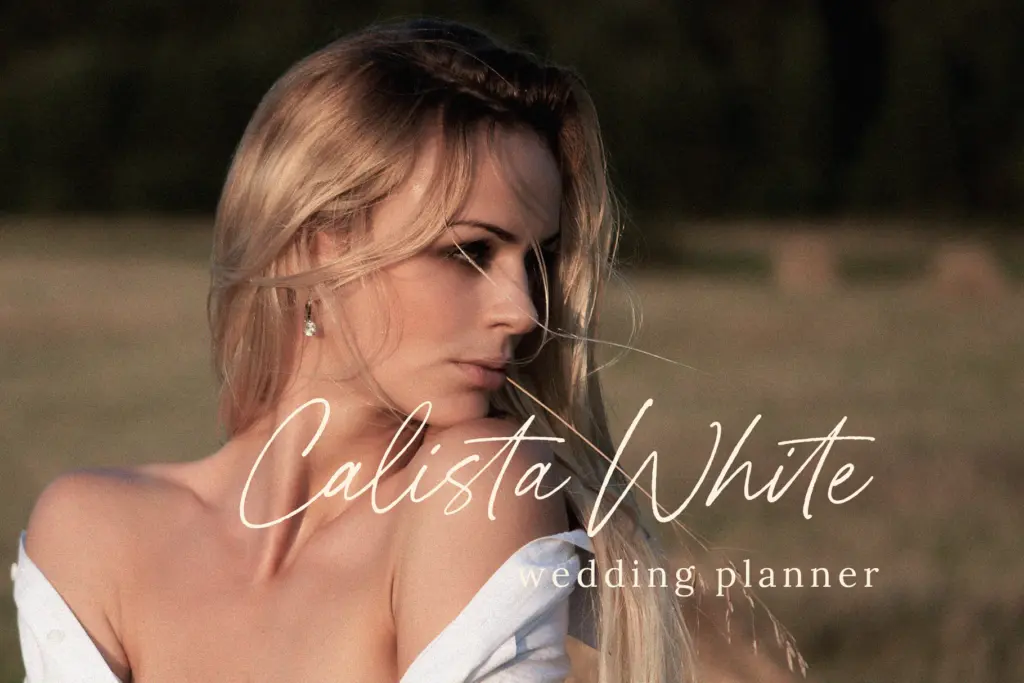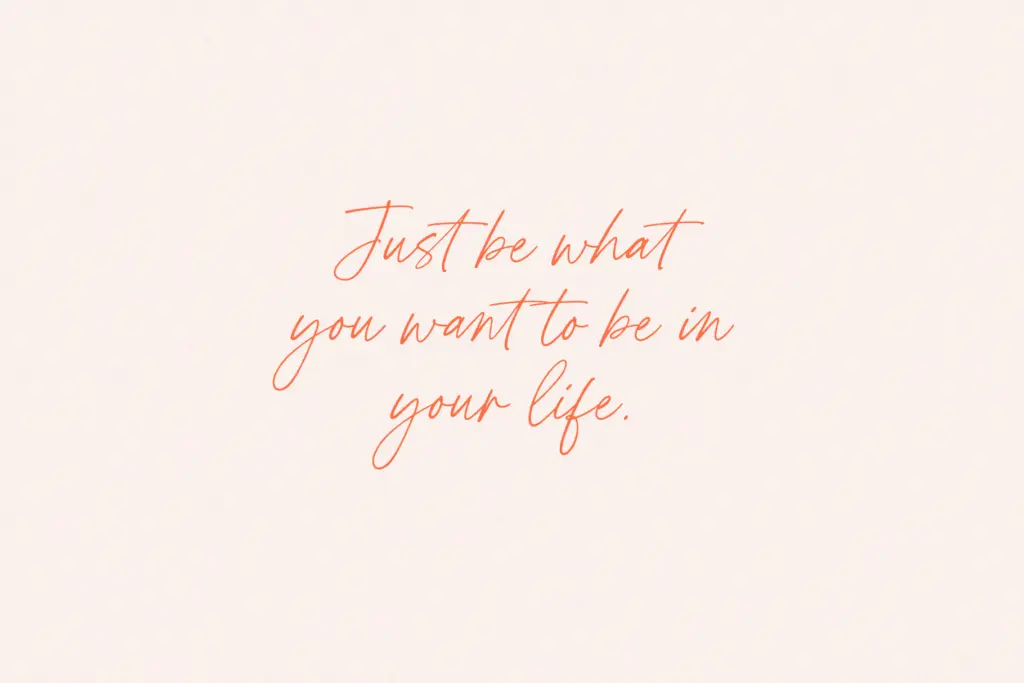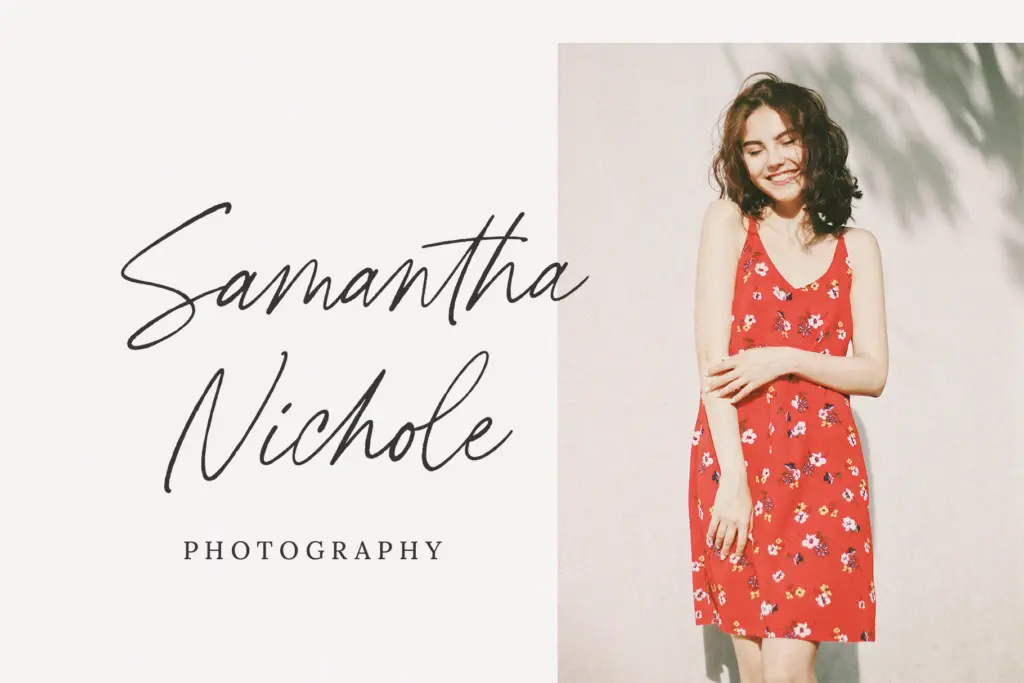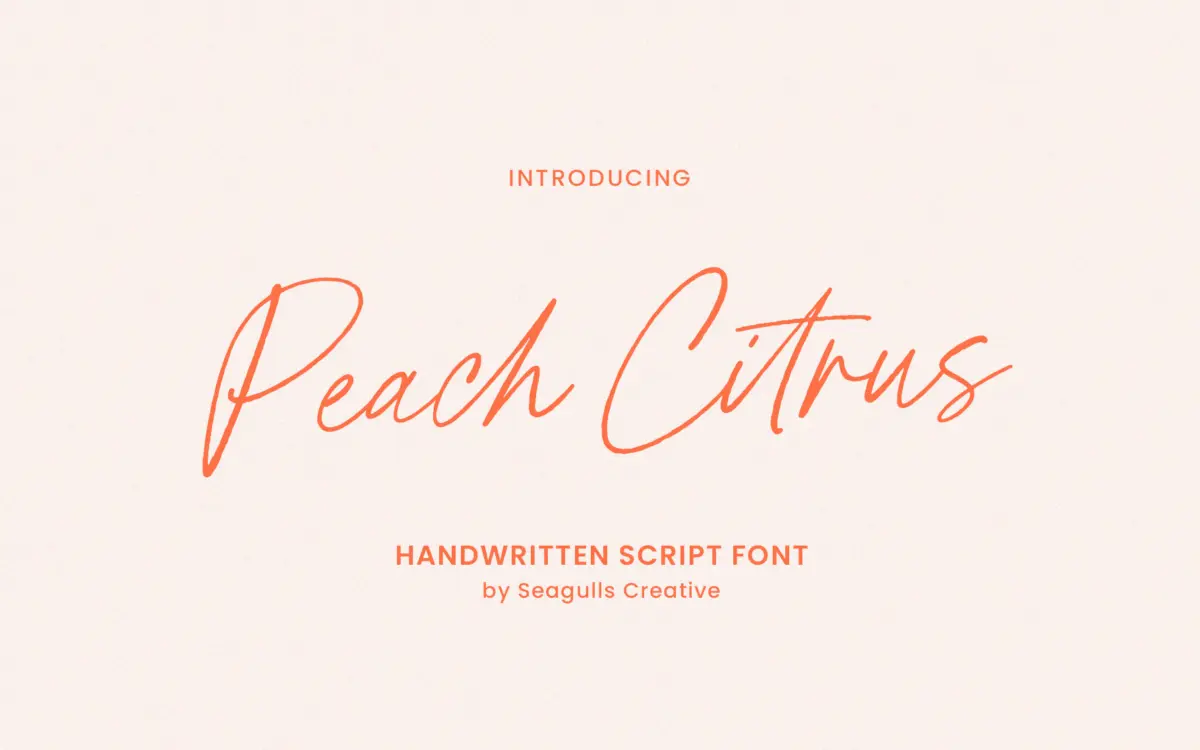
Peach Citrus sits in the well-populated field of casual, marker-style scripts: a single-weight handwritten face that leans toward a relaxed, unforced pace rather than a formal calligraphic one. The strokes have a modest amount of contrast, thick enough at the downstrokes to give the letters some body, but never so heavy that it reads as brush lettering. Baselines drift slightly rather than sitting rigid, which is the point of this genre — it’s meant to look like it was written in one take, not built letter by letter in a type editor.
Where it distinguishes itself from the crowd of similar releases is in the restraint of its joins. Some connections between letters are true ligated strokes, others are simply close-set forms that trick the eye into reading as continuous. This keeps the overall texture even rather than lumpy, which is a common failure point in handwritten scripts where certain letter pairs suddenly swell or thin unpredictably. It won’t win points for originality — this is a familiar register — but the drawing is consistent, and consistency is what most buyers actually need from a script.
The set covers uppercase and lowercase, numerals, punctuation, and a run of swash alternates for capitals that want a bit more flourish at the start or end of a word. Ligatures handle some of the more awkward letter combinations that plague scripts — double letters, certain ascender-descender collisions — and the swash caps give you an option for a title-case first letter without switching to a display alternate. There’s stated multilingual support, useful if your work needs accented characters, though the brief doesn’t specify which languages beyond that.
None of this is groundbreaking for the category — swashes and ligatures are close to standard-issue in a script font at this level — but they’re present and functional, and that’s what matters when you’re setting a word and need the kerning to hold up without manual nudging every pair.
This is a font built for short bursts of text, not paragraphs: a wedding invitation’s leading line, a logotype, a label on packaging, a caption on a social graphic. At small sizes the joins can get muddy, particularly on screens with lower resolution, so anyone using it for print labels or social posts should test at the actual output size before committing — scripts like this tend to look better in a mockup at 200pt than they do shrunk onto a jar label.
It pairs naturally with a plain sans or serif for supporting text, since the script itself is doing all the personality work and doesn’t need competition. For branding work, it suits food, beverage, and lifestyle projects looking for warmth without going fully rustic or vintage — it reads more contemporary casual than heritage. If your project needs formality or gravitas, look elsewhere; Peach Citrus is built for approachable, not solemn.
- Ligatures and near-joins keep the letter spacing even rather than lumpy
- Swash capitals give a flourish option without switching fonts
- Multilingual support extends its use beyond basic English text
- Joins can blur at small sizes, so testing at actual output size is essential
- The style itself is common in the market and doesn't stand out from similar casual scripts
Peach Citrus is a solid, unfussy handwritten script that does the basics well without pushing the category forward. It's dependable for short branding phrases and invitation lines but needs care at small sizes. A safe pick rather than an exciting one.